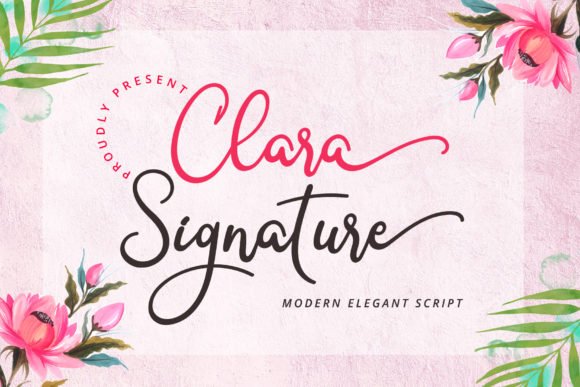
Unleash the Magic of Handwritten Charm
Have you ever been browsing through a beautifully designed wedding invitation or a social media post that makes you smile, and you wonder how they managed to capture that perfect, whimsical feel? It’s often the result of a well-chosen font that adds a touch of personality to the design. For many designers, the hunt for the perfect handwritten font is a constant quest, but what if we told you that we’ve found a treasure trove of a font that fits the bill?
Meet the Clara Signature Font, a jolly and sweet handwritten font that’s as versatile as it is charming. Whether you’re designing a wedding invitation, creating a brand identity, or crafting a social media post, this font is sure to bring a smile to your audience’s face. With its PUA encoding, accessing all the glyphs and swashes is a breeze, making it a valuable addition to any designer’s toolkit.
Clara Signature Font Key Features
- Font Family: Clara Signature Font is a beautiful, elegant script font designed for signature use, ideal for personal and professional applications.
- Unique Characteristics: Features a unique, flowing script design that is both elegant and professional, making it perfect for signatures, logos, and other custom typography needs.
Clara Signature Font Review
I’ve had the chance to work with the Clara Signature Font, and here’s my honest review.
- The Clara Signature Font has a unique, elegant design that’s perfect for personal branding, wedding invitations, or any other project that requires a touch of sophistication.
- The font is highly customizable, with a wide range of font styles and sizes available to suit your needs.
- The Clara Signature Font is also highly legible, making it perfect for body text as well as headings and titles.
- The font is well-suited for digital and print use, ensuring that your design looks great on any platform.
- The font may not be suitable for projects that require a bold, attention-grabbing font, as it’s more understated.
- The Clara Signature Font may not be available in as many languages as some other fonts, which could be a limitation for international projects.
Overall, I think the Clara Signature Font is a beautiful and elegant font that’s perfect for projects that require a touch of sophistication. While it may have some limitations, it’s well worth the investment for those who need a high-quality, customizable font.
Tips for Getting the Most Out of Clara Signature Font
Use Clara Signature Font for creative and professional applications, such as logos, business cards, and invitations. Experiment with different font sizes and colors to achieve a unique look.
Clara Signature Font is ideal for:
- Business cards and stationery
- Invitations and event materials
- Editorial and creative projects
Alternatives to Clara Signature Font for Designers
Playfair Display is a high-end, elegant serif font perfect for luxury branding, invitations, and high-end fashion designs. It features beautiful connections between letters and a classic feel. It’s ideal for projects that require sophistication and refinement. Compared to Clara Signature Font, Playfair Display is more dramatic and has a stronger emphasis on elegance.
Lato is a modern sans-serif font ideal for digital products, websites, and mobile apps. It’s highly legible and features a clean, minimalist design. Lato is perfect for projects that require a modern and approachable feel. Compared to Clara Signature Font, Lato is more straightforward and lacks the dramatic flair of Playfair Display.